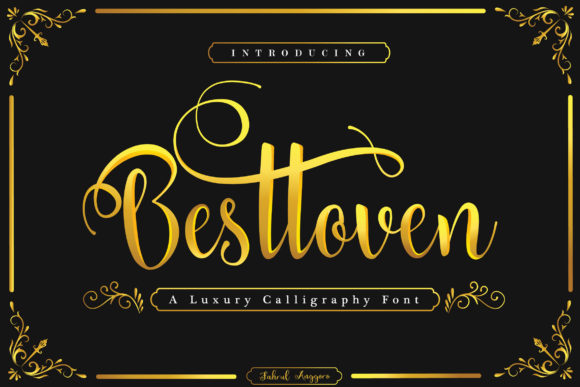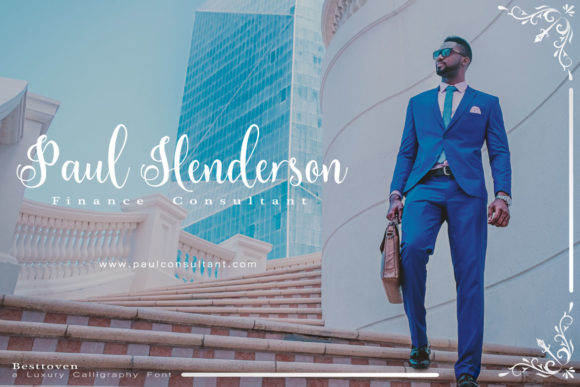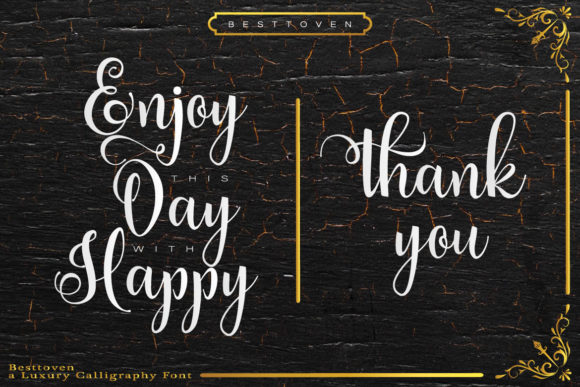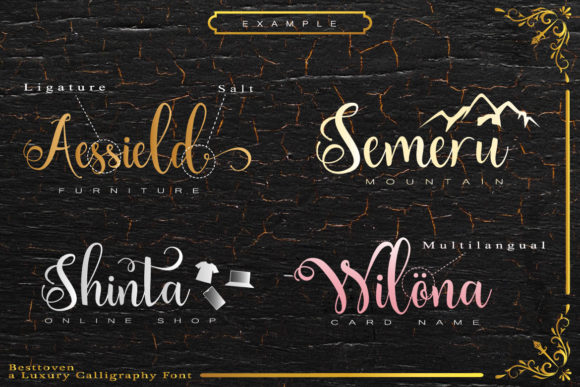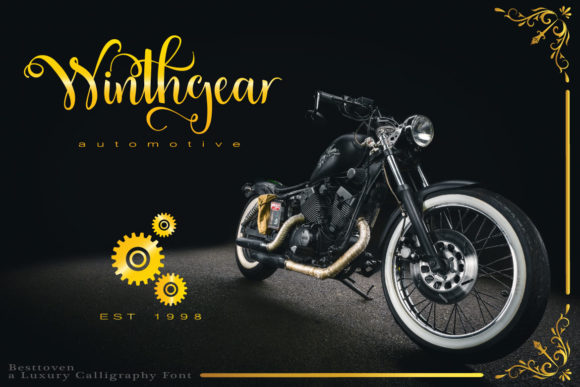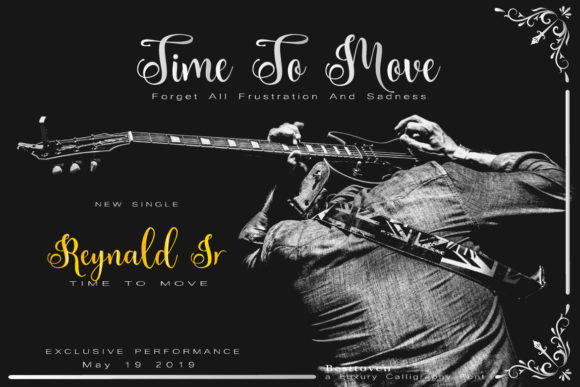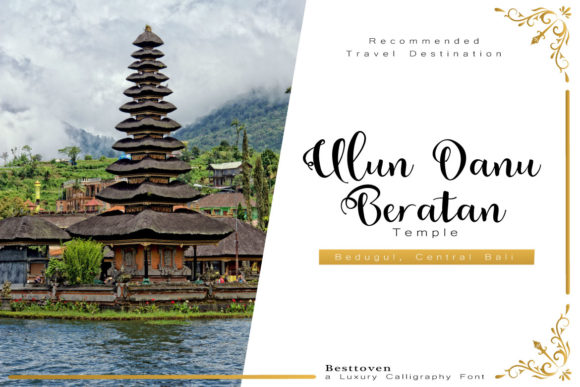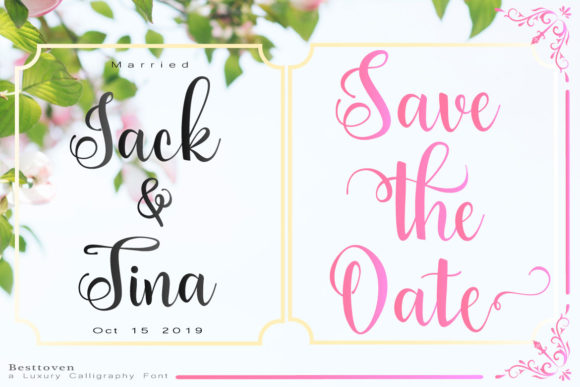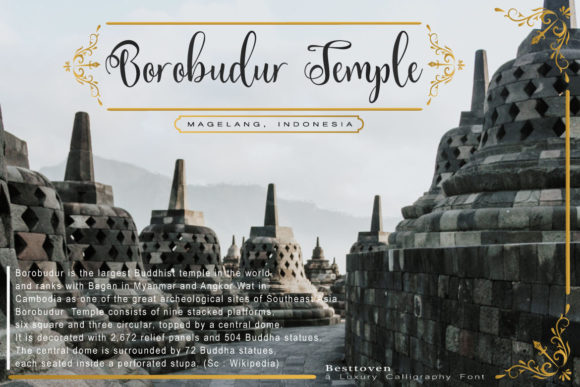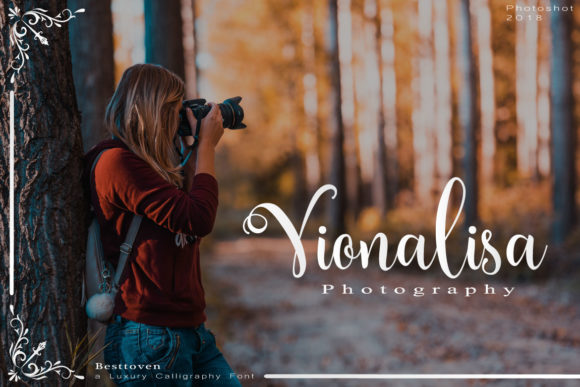
Besttoven Font
About Besttoven Font
The Besttoven is a modern calligraphy script. It has a luxurious look which is perfect for upscale and chic designs.
It can be used for branding, logos, quotes, wedding, name card, invitations, interior design, posters, movie title, signatures and much more.